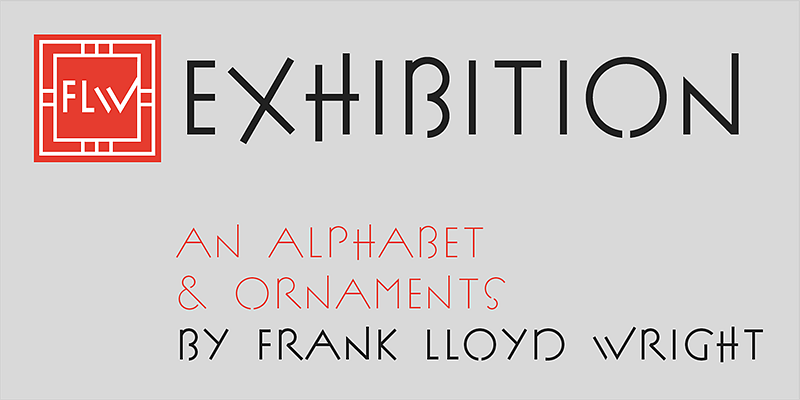
P22 FLW Exhibition
P22 FLW Exhibition was lettered by Frank Lloyd Wright in 1931 and was intended primarily to accompany Frank Lloyd Wright's exhibition drawings and models.